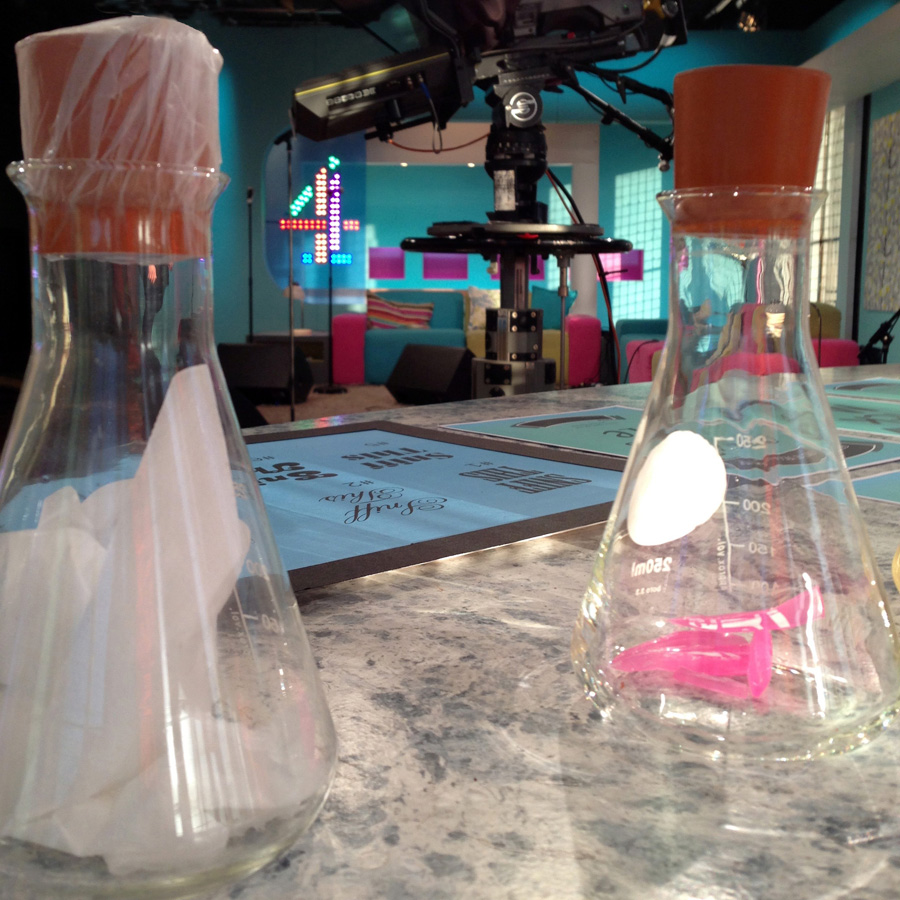
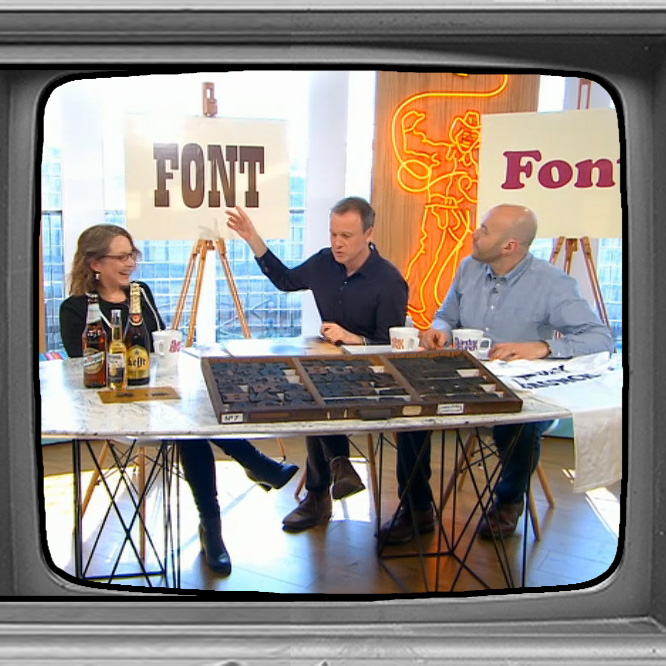
“Welcome to Sunday Brunch Live, Sarah welcome back to the show…”
I love being the occasional typography expert for Sunday Brunch, Channel 4 Television’s live TV show here in the UK. It’s always an exciting opportunity to share my type-themed games and demonstrations with a mainstream audience, which is something I’ve specialised in since launching Type Tasting.
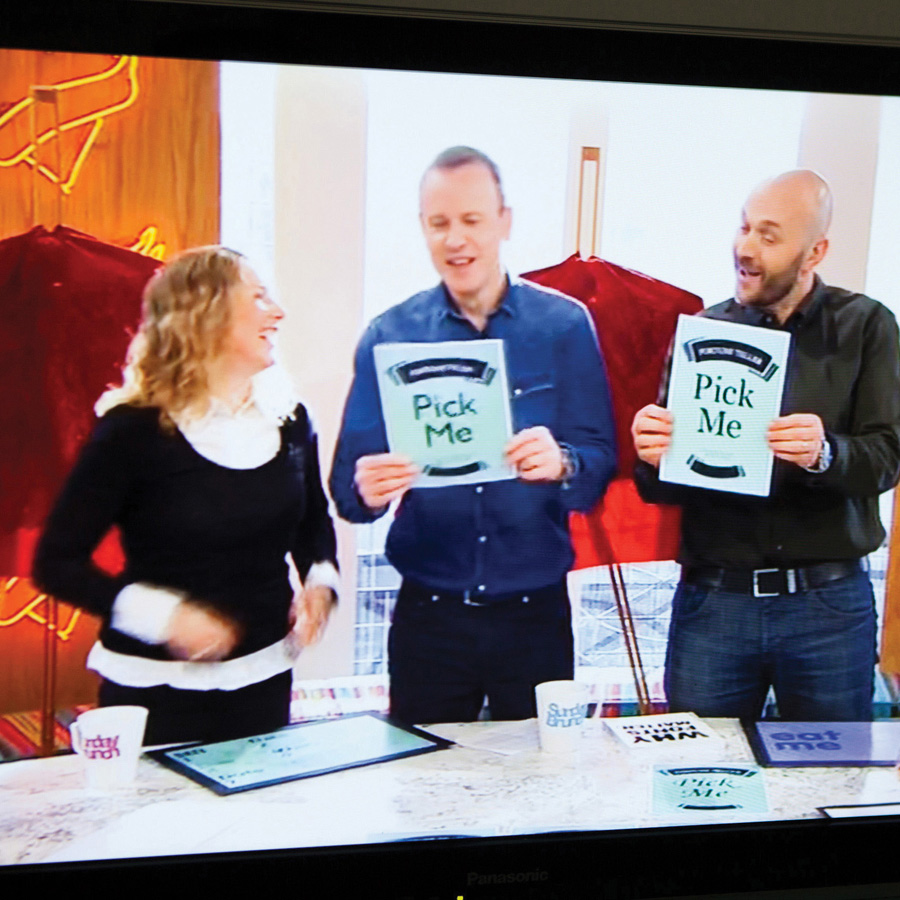
Knowing that well over half a million people watch each show really gets the adrenaline pumping while I’m sitting in the green room watching the time counting down. It’s a very surreal feeling. But the presenters are absolutely brilliant at making the guests feel relaxed—I think that’s their superpower. When my very first appearance was about to start, presenter Simon Rimmer leaned over and whispered “I love typography” to me with a big smile. This turned my nerves into enthusiasm, and you can tell that we were having fun when you watch.
Presenters Simon and Tim Lovejoy have joined me for font sniffing, to chat about how menus can influence your appreciation of a meal and I’ve analysed their personalities from their font choices. I’ve talked about type trends in popular culture and where they come from. There are always lots of props and visuals. It’s fun preparing the content because the graphics team at the production company get excited about creating the visuals for the segment. After all, it’s all about typography!
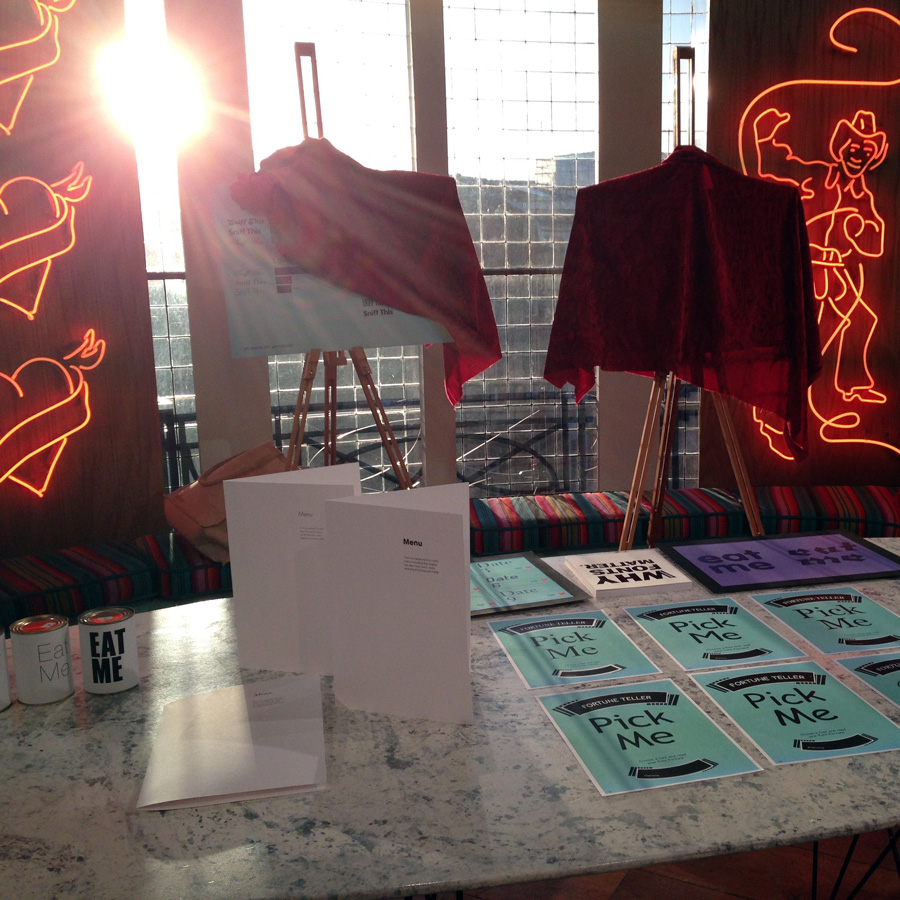
It’s fascinating to see behind the scenes of live television and to know just how much goes into creating a show. I was surprised to discover that the studio’s pretty small and not the spacious environment I used to imagine when I watched. The table for my interviews is right on the edge of the kitchen, so I wait very quietly for the cooking to end and hope my stomach doesn’t decide to growl from the smell of the food. Then I have to tiptoe quietly out of the studio as soon as my segment ends. The adrenaline shakes are setting in at that point so I have to be extra careful not to trip over cables and duck under lights carefully so I don’t knock them out of position. It’s interesting to see how different people calm their nerves in the green room beforehand, especially the really famous guests who must have done this so many times.
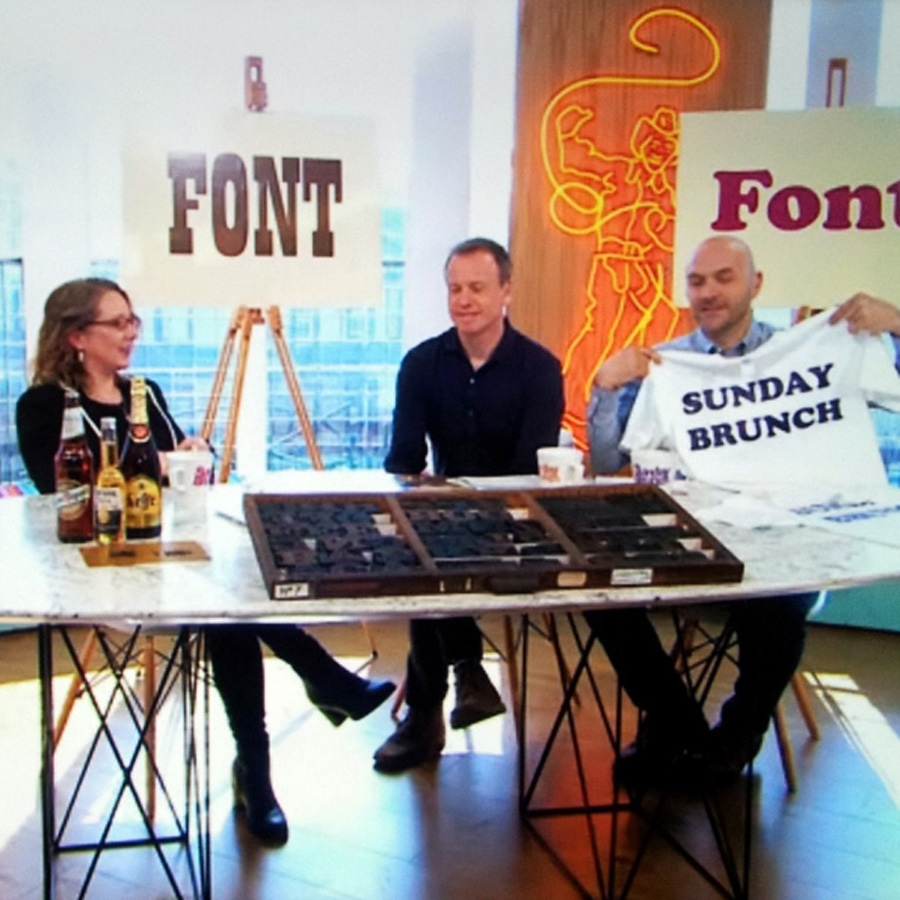
I look forward to popping up on television again soon, maybe on Sunday Brunch again.